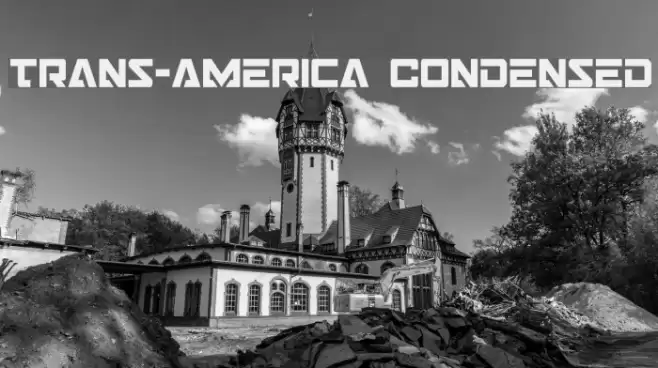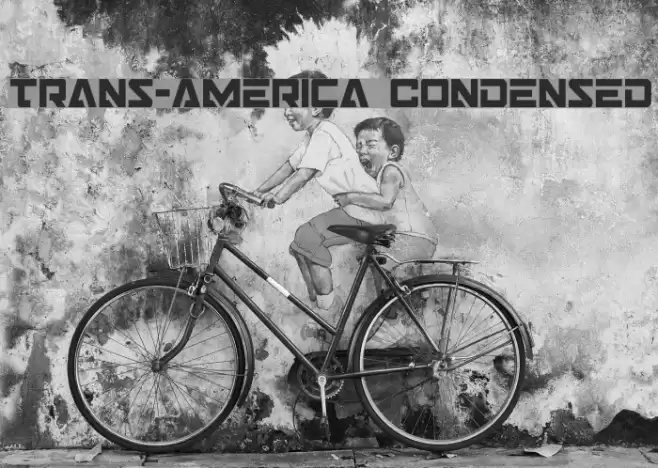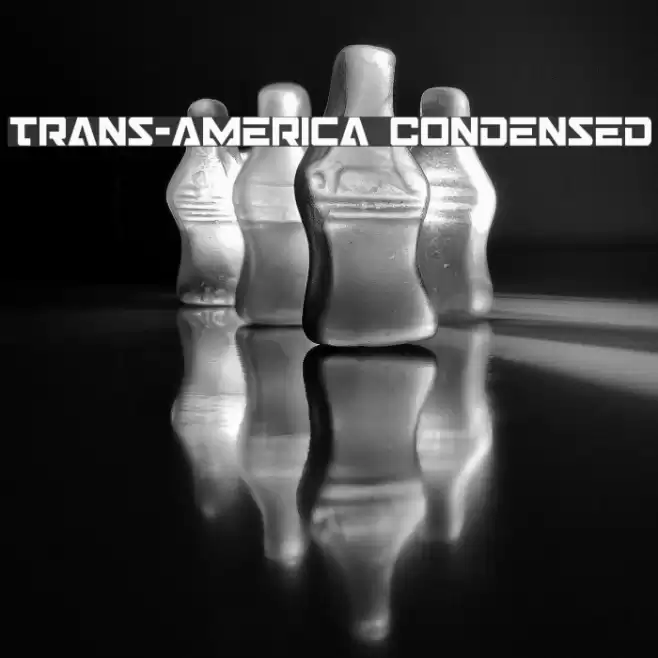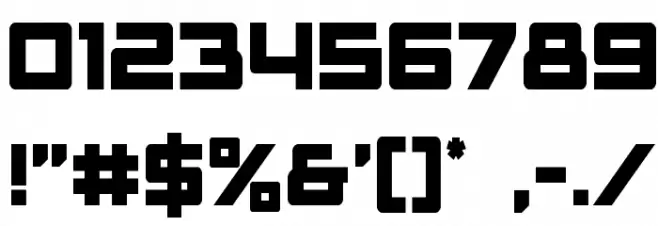
Trans-America Condensed Font
Trans-America Condensed Description
This font features a bold and geometric design, characterized by its strong, angular lines and condensed form. The uppercase letters are particularly striking, with a futuristic and industrial aesthetic that commands attention. The characters are tightly spaced, enhancing the compact appearance. The numbers and special characters maintain the same boldness and geometric style, ensuring consistency across all glyphs. This font is ideal for projects that require a modern and impactful look, such as branding, posters, and headlines. Its unique style makes it stand out, providing a distinctive visual identity.
A bold, geometric, and condensed font with a futuristic and industrial aesthetic from Uncategorized fonts.
- Proposed Projects: Ideal for branding, posters, headlines, and any project needing a modern, impactful look.
- Character Spacing: Tight